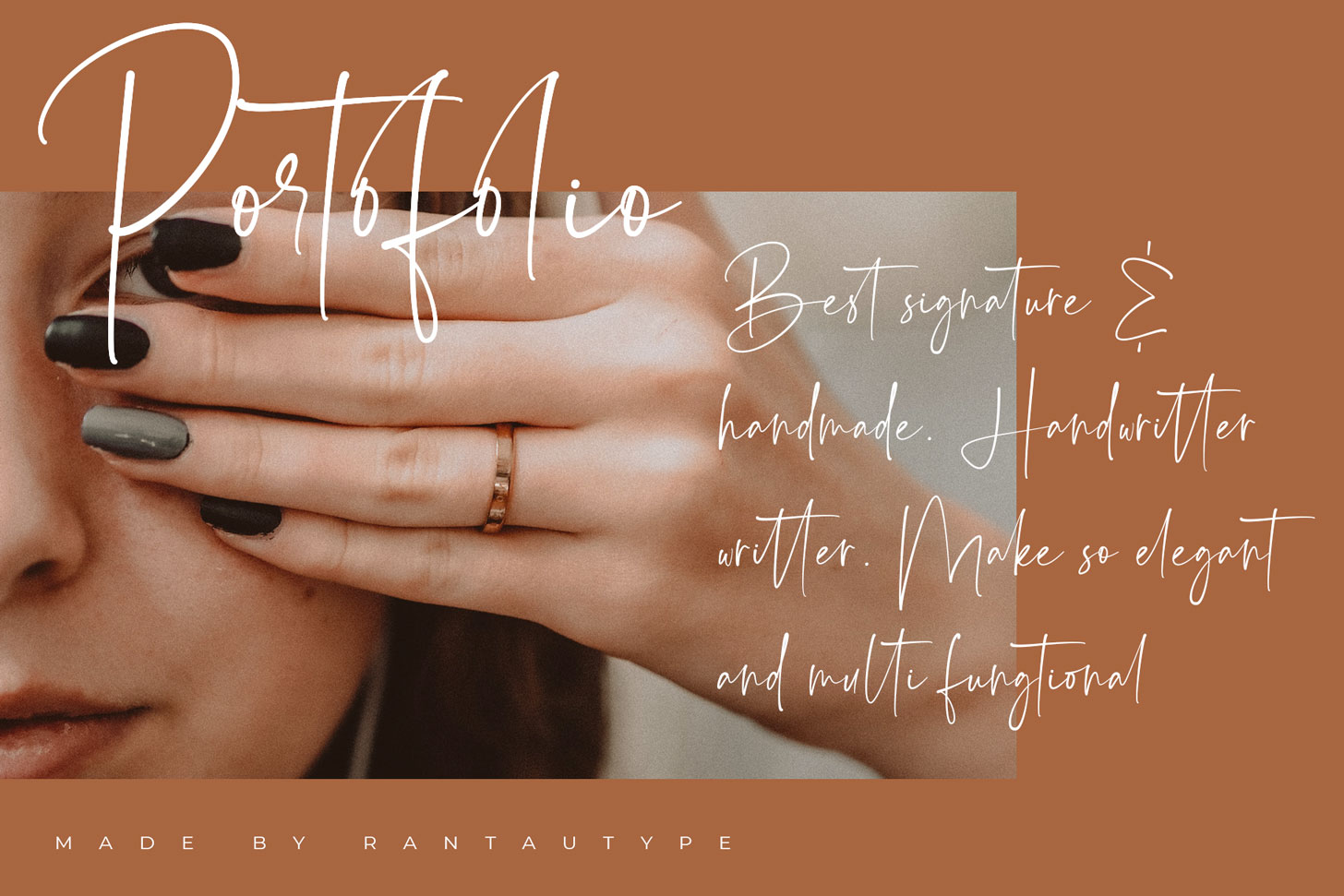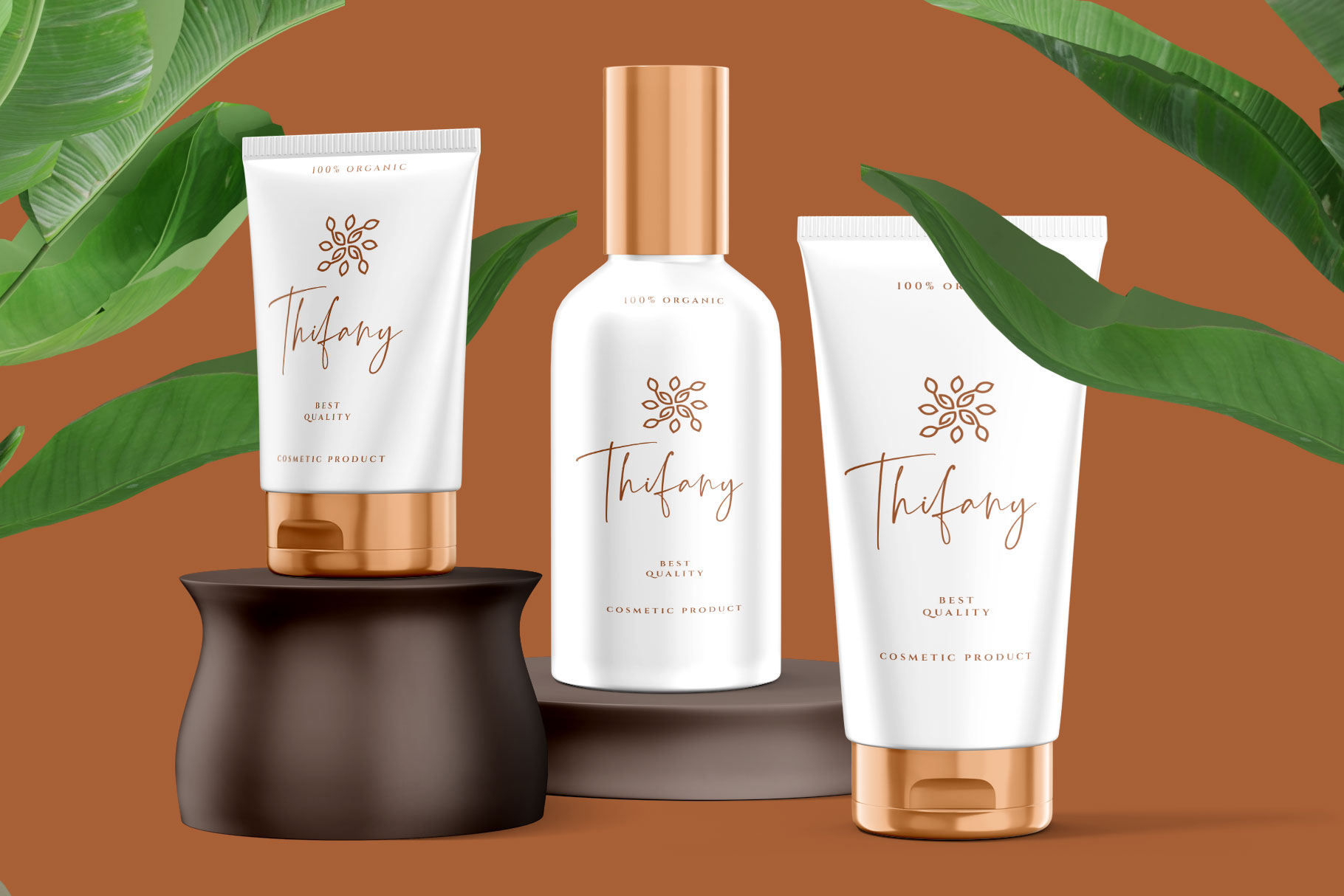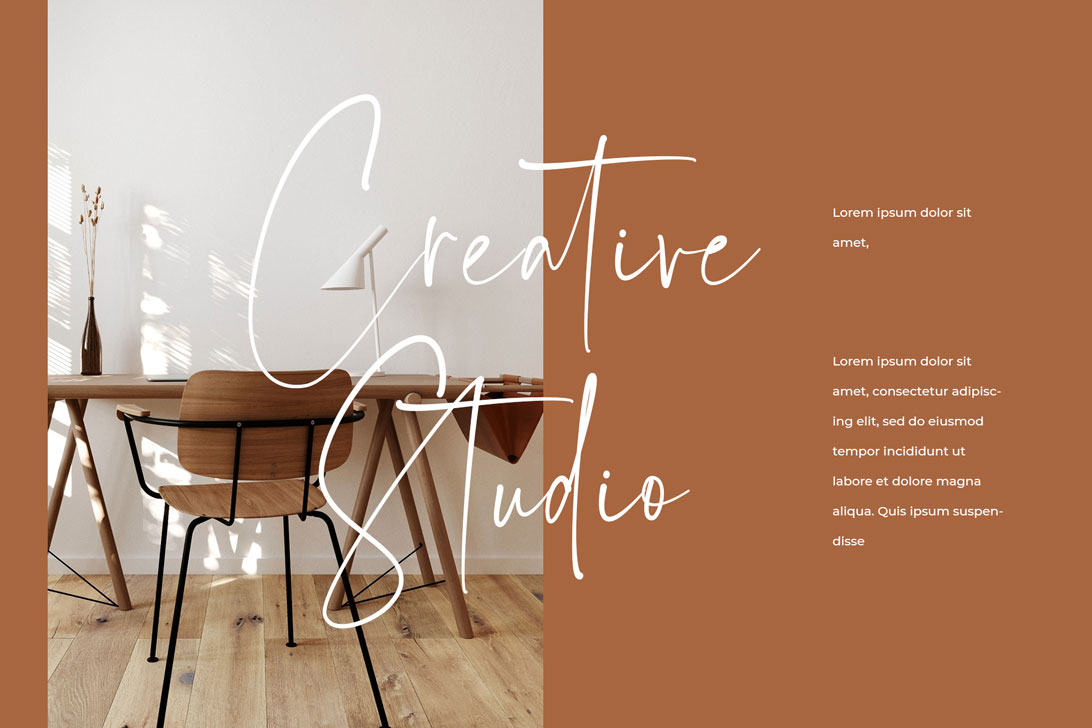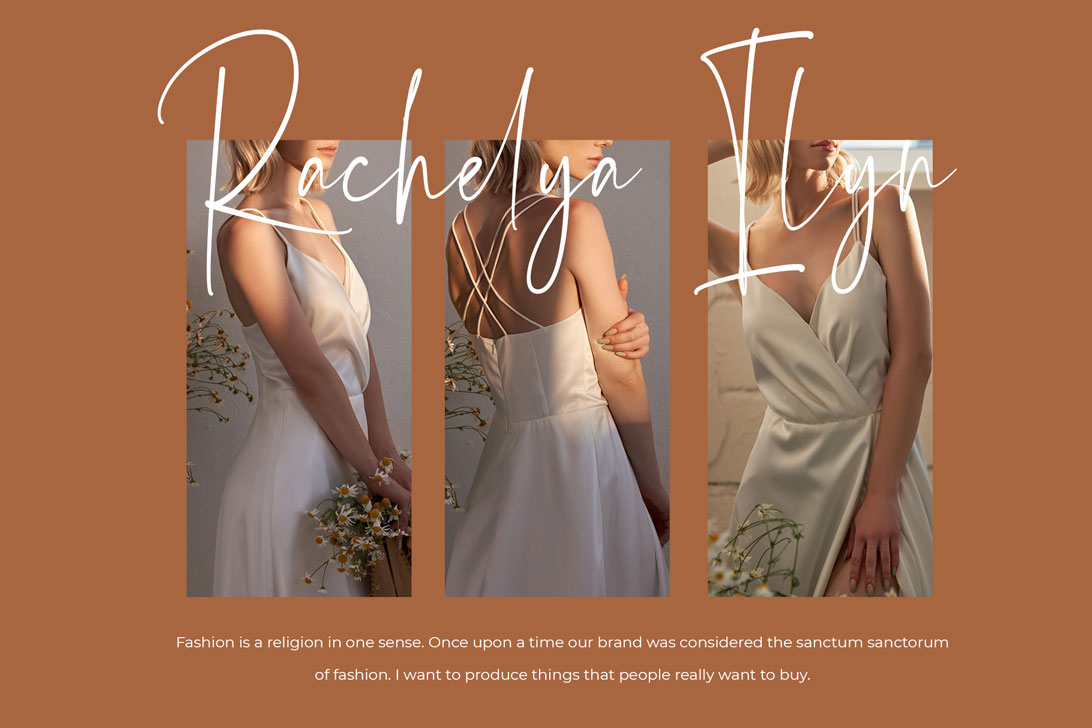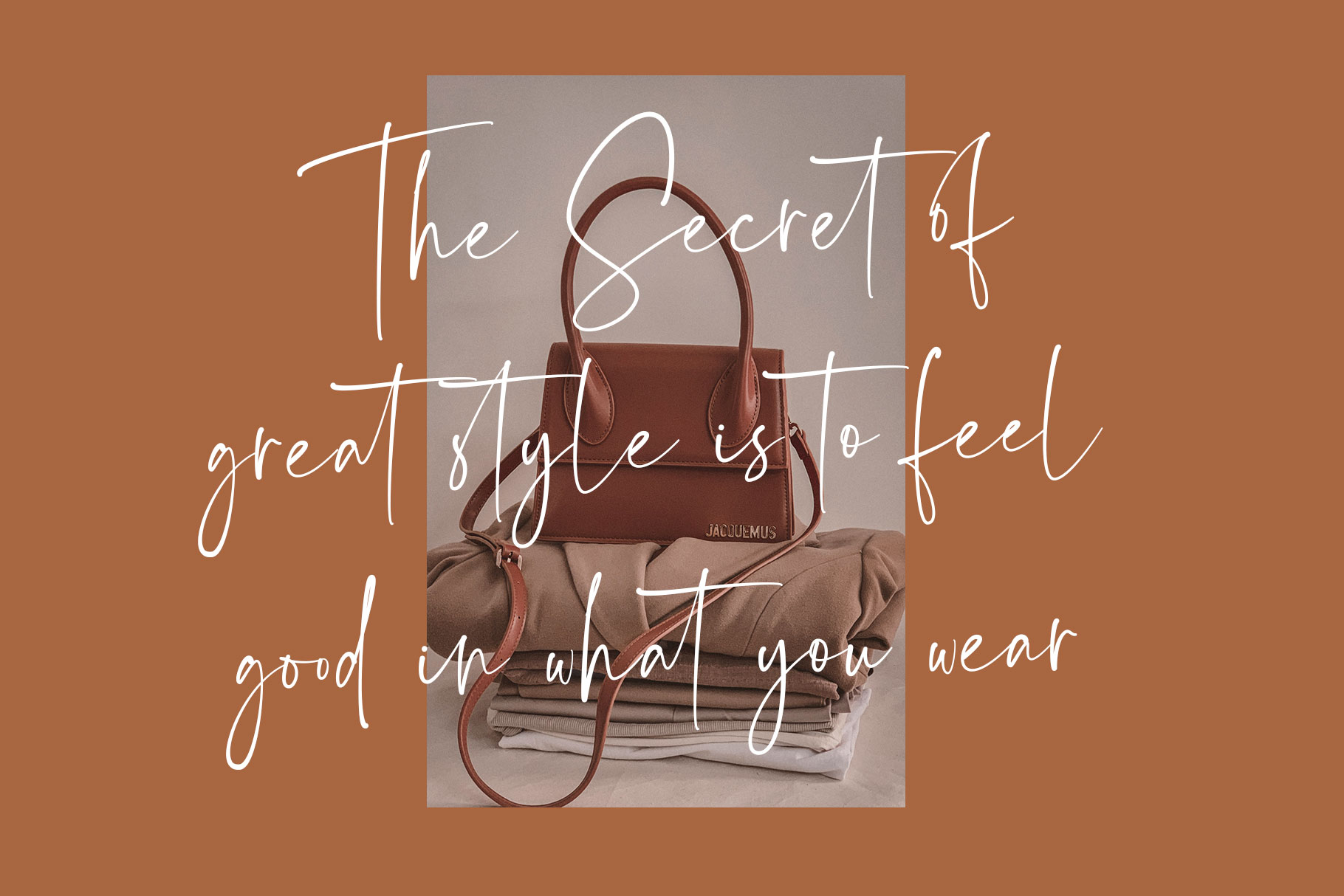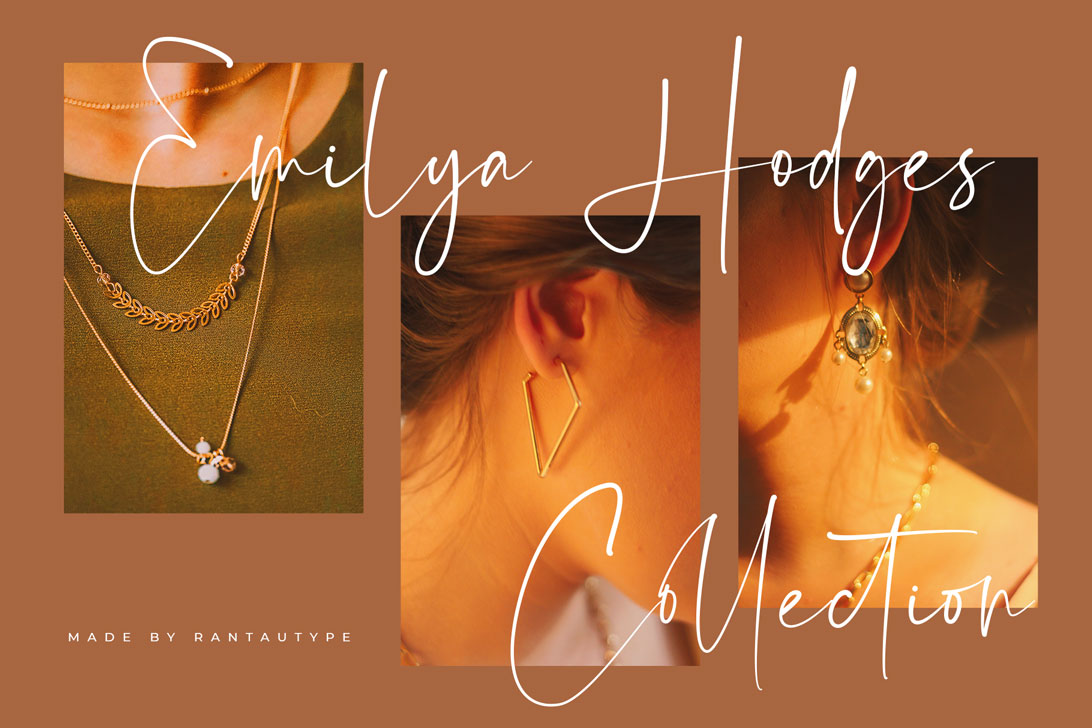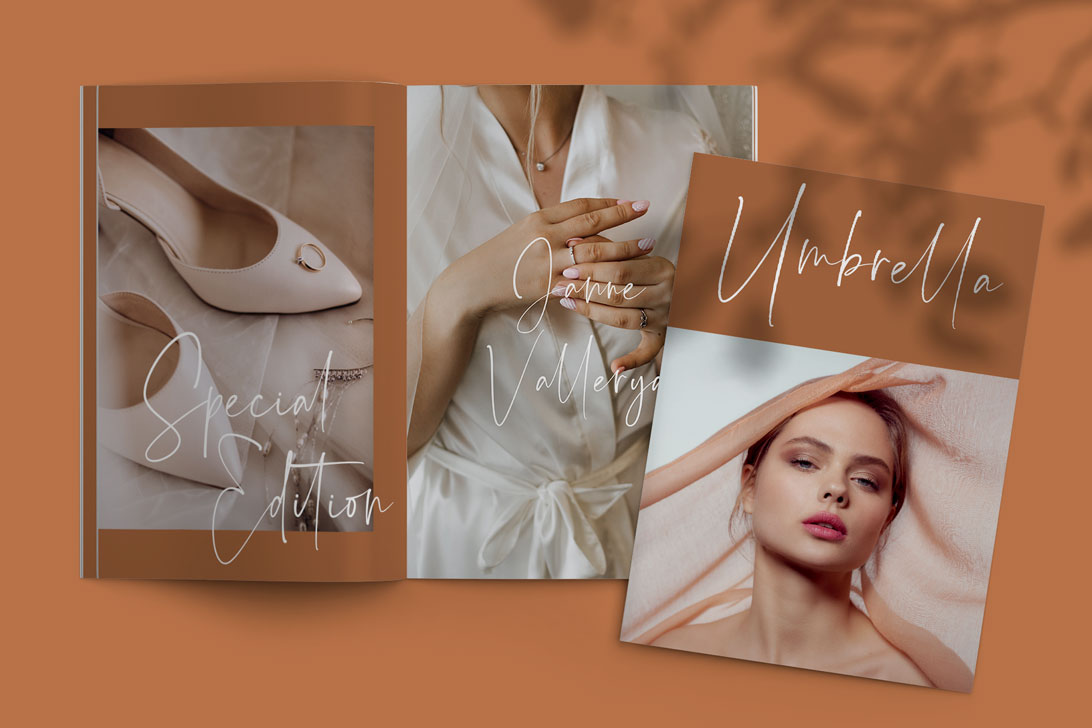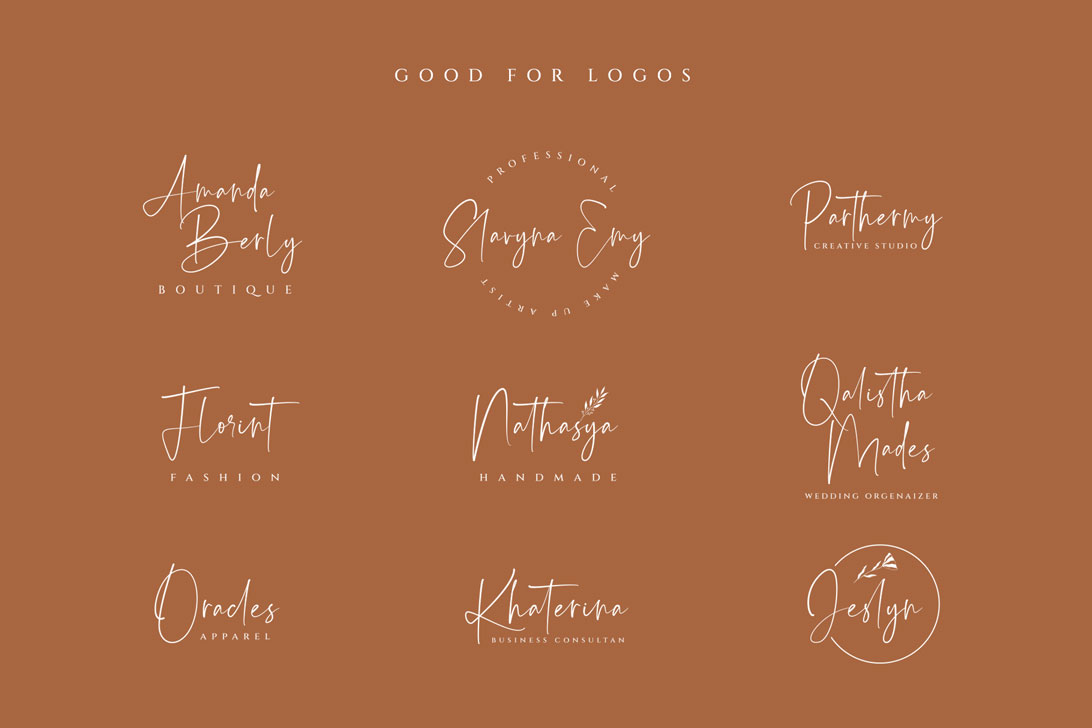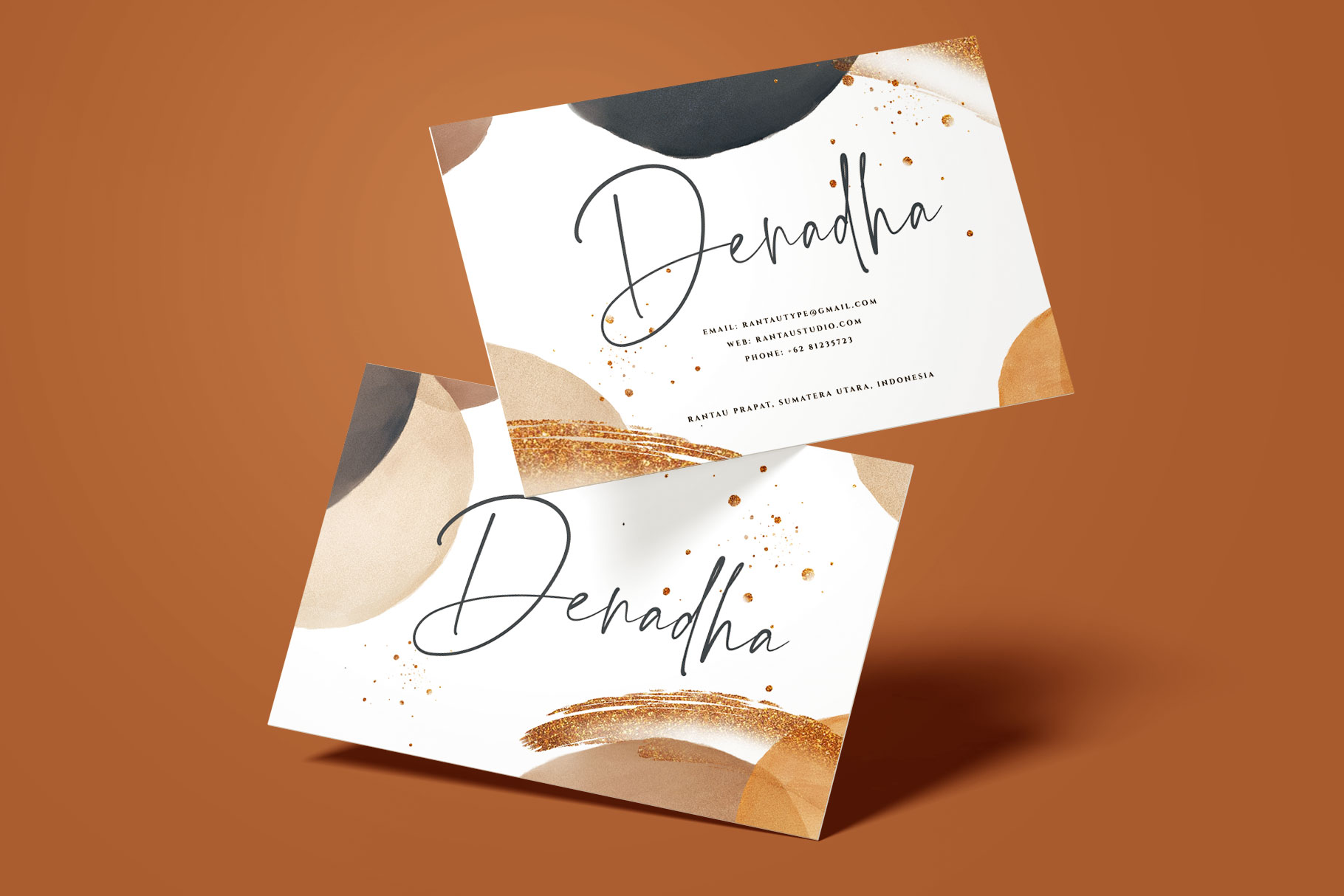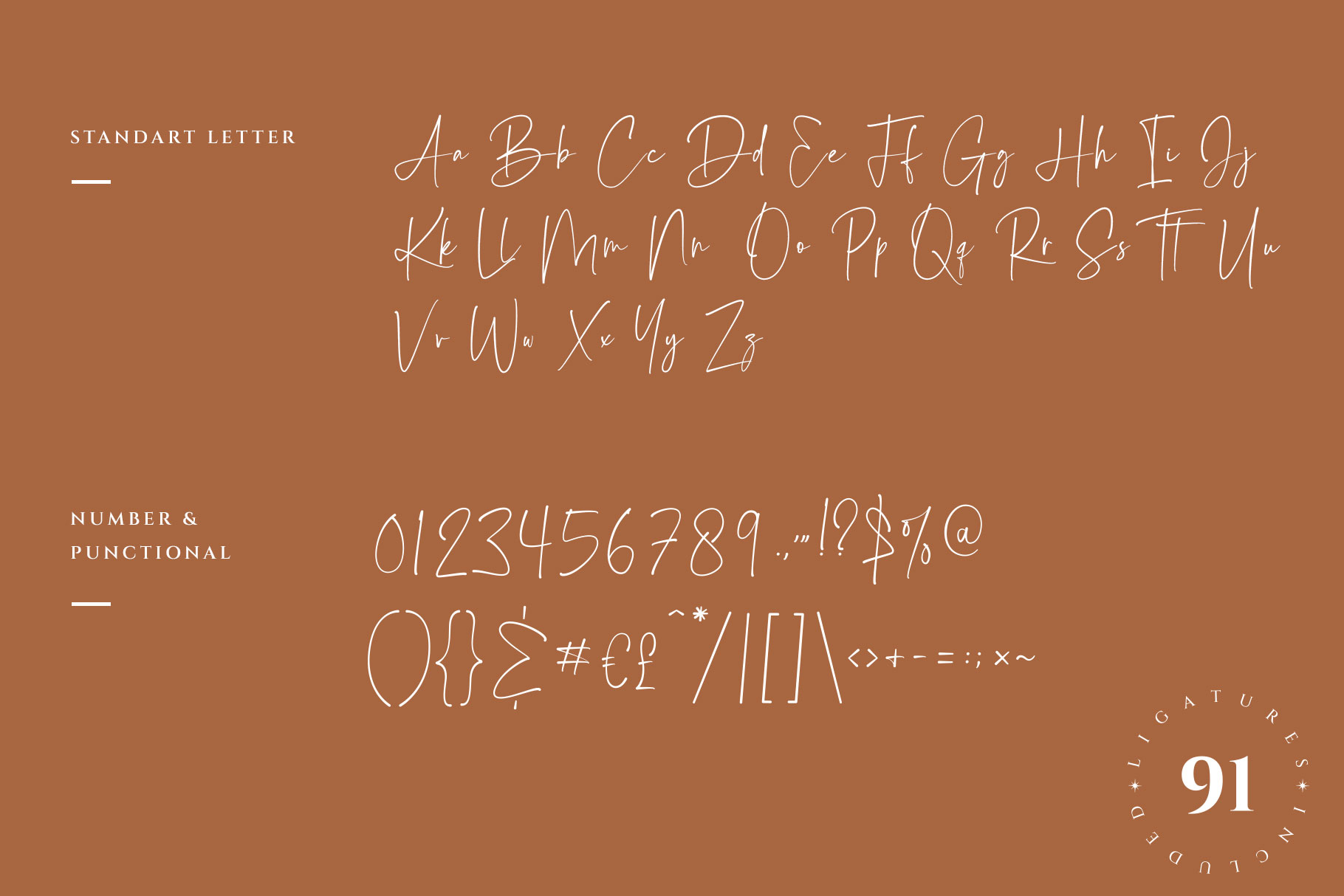
Arthamyn A Chic Signature Font
Arthamyn is elegant style which can be interpreted professional. we keep this font looks elegant, luxury, premium, modern, readable, stylish, feminine, girly, catchy and easy to use also included with more swash. Arthamyn  is the great choice for watermark on photography, signature or signature logo design, quotes, album cover, magazine, business card and many other design project. Arthamyn here to make your work to high level!!!
• Ligature and Alternate
• Swash